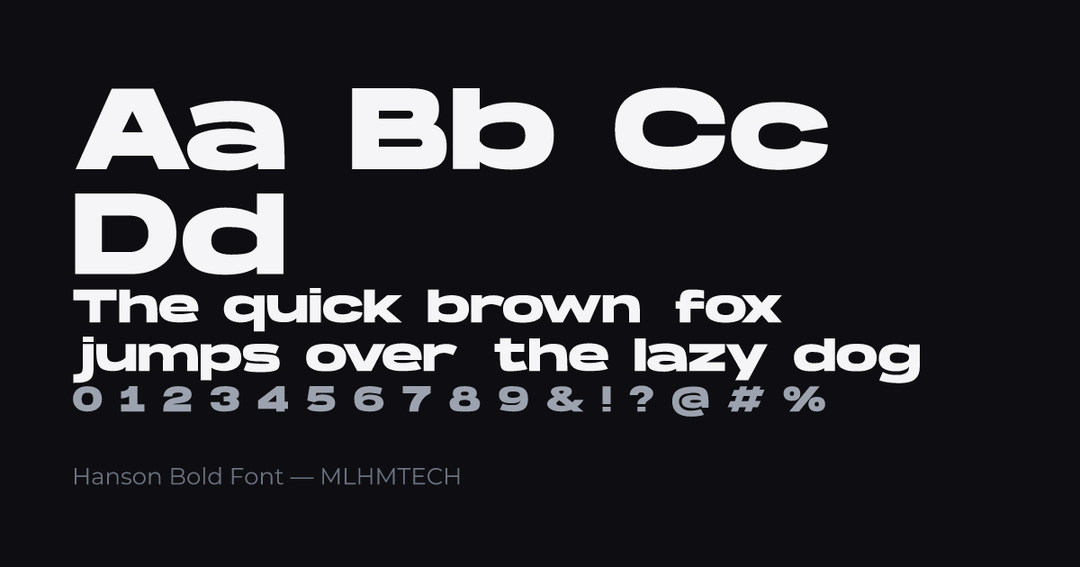
Hanson Bold Font
Hanson Bold is a modern, geometric sans-serif font with a clean and high-impact look, ideal for headlines, logos, and branding projects.
Hanson Bold is a contemporary sans-serif typeface that exudes confidence and clarity. Its geometric letterforms and consistent stroke weights make it highly legible at various sizes, from large display headlines to smaller subheadings. The font's bold weight adds a strong presence, making it perfect for grabbing attention in posters, social media graphics, and marketing materials.